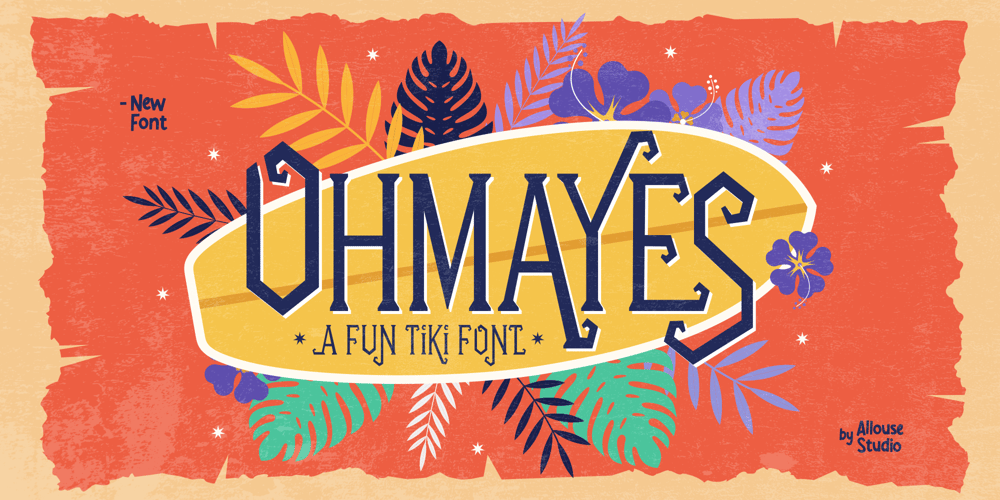
Ohmayes Font Family was designed by Fachrizal Yusuf and published by Allouse Studio. Ohmayes contains 1 styles and family package options. Proudly Presenting, Ohmayes A Fun Tiki Font.Ohmayes is perfect for any titles, logo, product packaging, branding project, megazine, social media, wedding, or just used to express words above the background.Ohmayes also come with Multi-Lingual Support.Enjoy the font, feel free to comment or feedback, send me PM or email. Thank You!